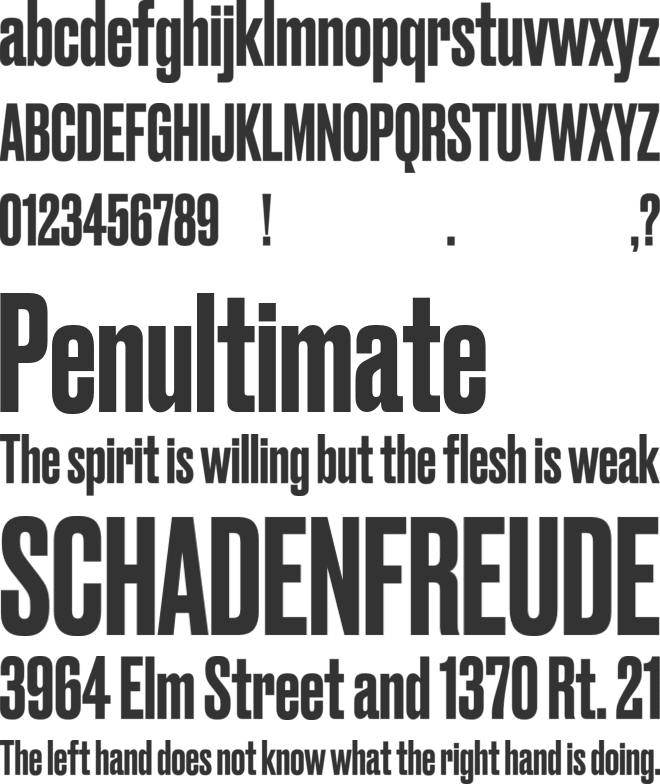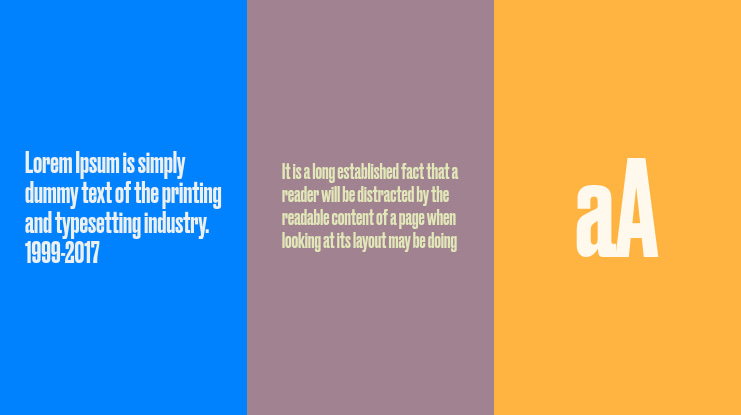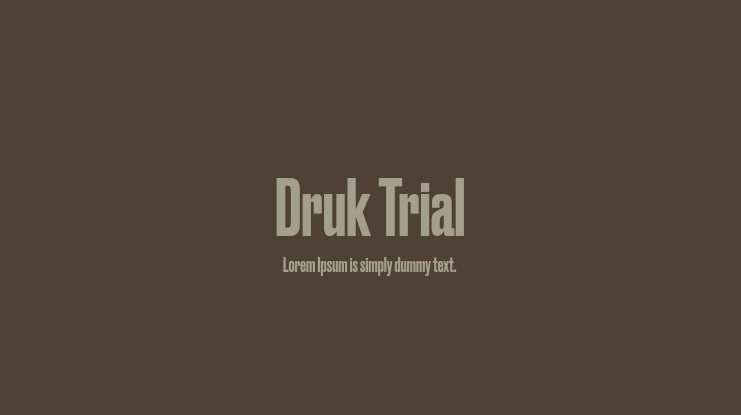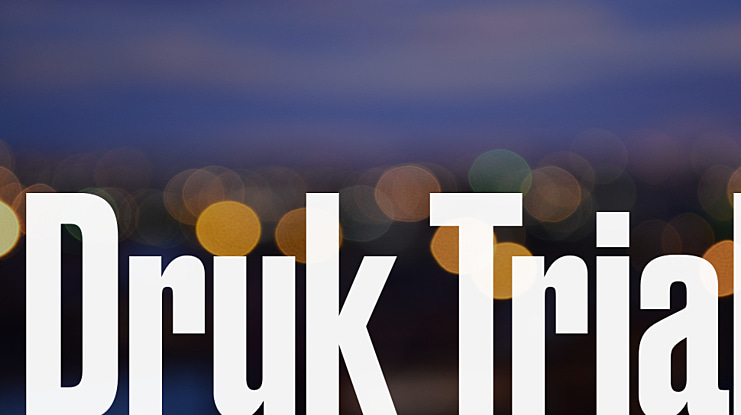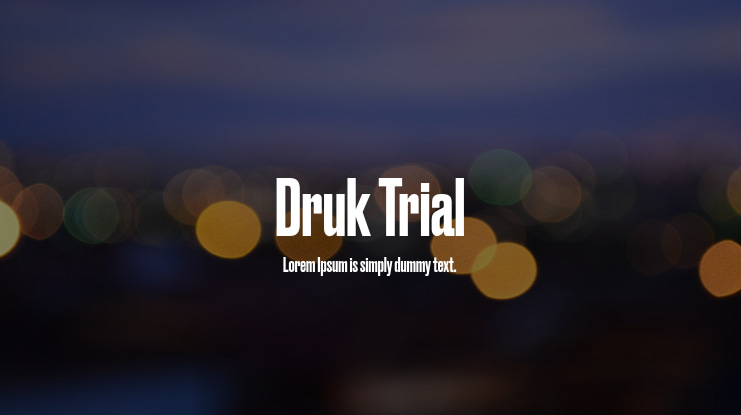
This is a strong sans serif font family, with solid lines, paired with bold yet soft rounding. Berton Hasebe created Druk for Richard Turley when he was creative director at Bloomberg Businessweek, adapting the attitude and roughness of these old condensed sans serifs for contemporary use. Itβs perfect for logotypes, signage, branding, apparel, posters, social media, headlines, titles, large format prints and more.